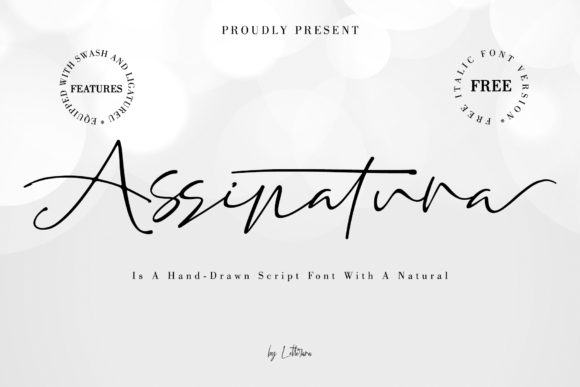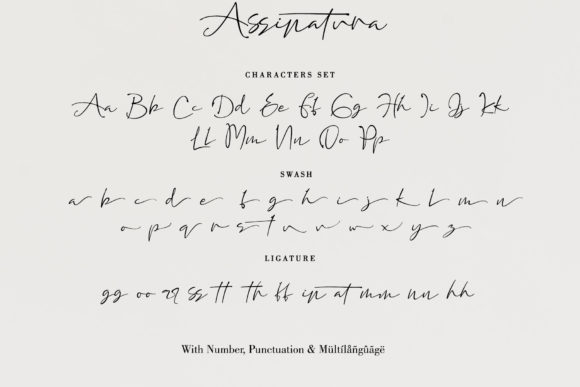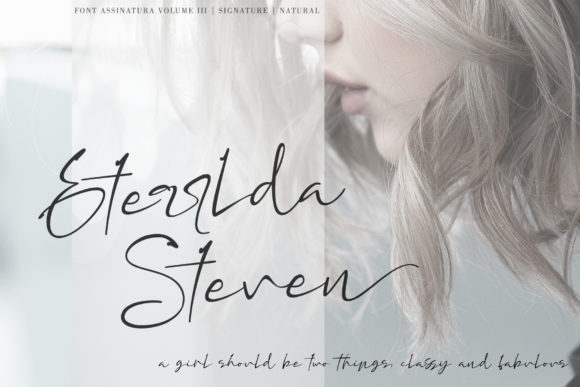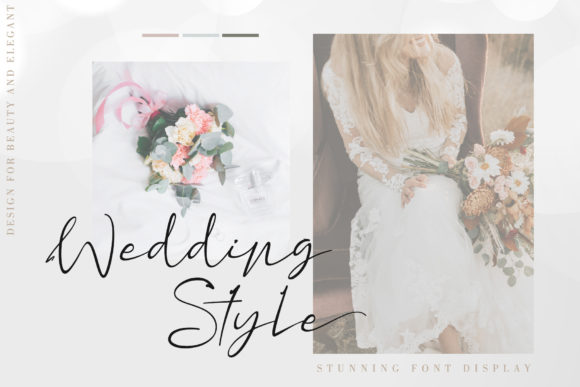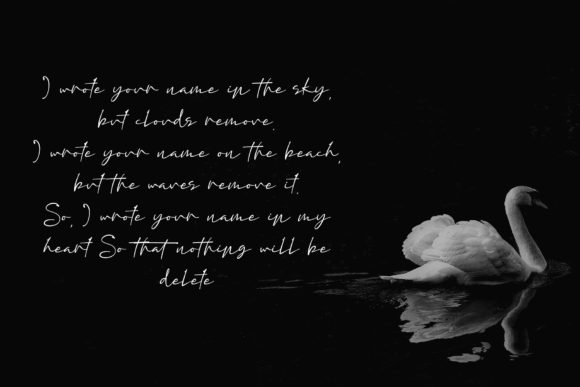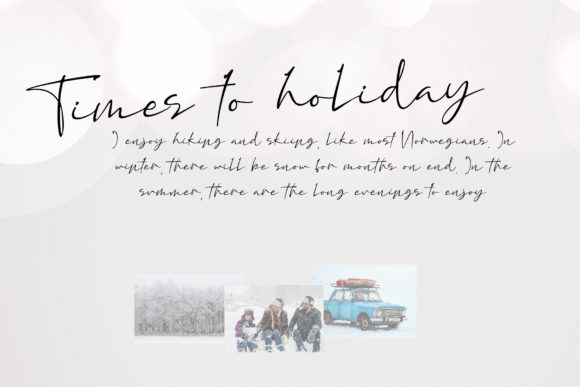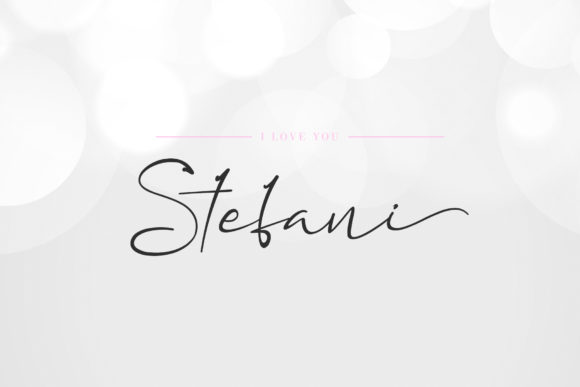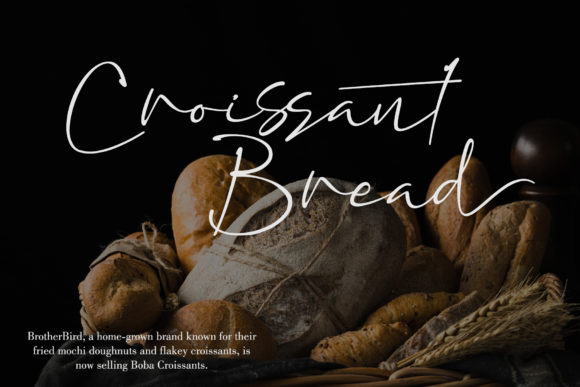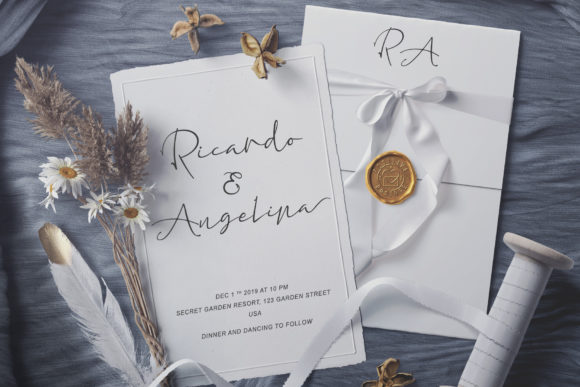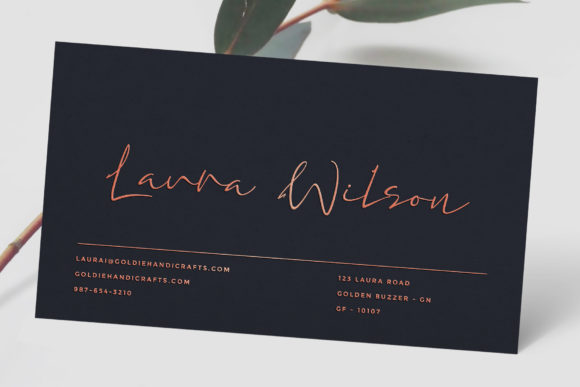
HomeScript FontsAssinatura Font Script Fonts Assinatura Font FacebookXPinterestWhatsApp Assinatura Font Poster 2 Assinatura Font Poster 3 Assinatura Font Poster 4 Assinatura Font Poster 5 Assinatura Font Poster 6 Assinatura Font Poster 7 Assinatura Font Poster 8 Assinatura Font Poster 9 Assinatura Font Poster 10 About Assinatura Font Assinatura is a strong and cool script that will add a powerful vibe to your next design project! DOWNLOAD ON CREATIVE FABRICAThis font is sold and delivered by Creative Fabrica. Font Canyon may earn a commission if you buy through this link. People also explored Taifun Font Cyrano BB Sidney Hayden Font Fruity Snack Radian Font Kube Font Trebloem Font Flighty Font Spring Sakura Font 310 0 TagsAssinatura Font Previous articleButterscotch FontNext articleRegistand Font LEAVE A REPLY Cancel reply Comment: Please enter your comment! Name:* Please enter your name here Email:* You have entered an incorrect email address! Please enter your email address here Website: Save my name, email, and website in this browser for the next time I comment. Personal Use Free Just Smile Personal Use Free Read more about this font Old Linoleum Personal Use Free Read more about this font Cloudy Night Personal Use Free Read more about this font Cinderella Personal Use Free Read more about this font BLOG Free Fonts Risk: Why Free Fonts Can Be Dangerous for Designers Free Fonts Risk: Why Free Fonts Can Be Dangerous for Designers Using free fonts is a common practice in web and graphic design. However, the... Using Fonts in Digital Marketing: Tips to Strengthen Your Brand Identity The 10 Best Handwriting Fonts to Add Personality to Your Designs Free vs Paid Fonts: Why Investing in Premium Fonts Is Worth It